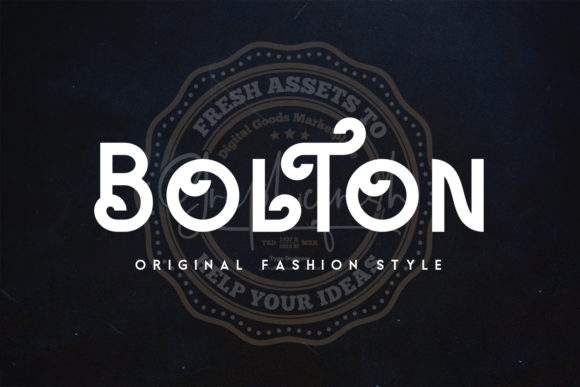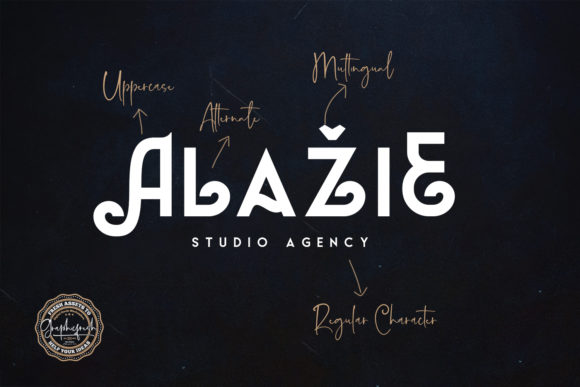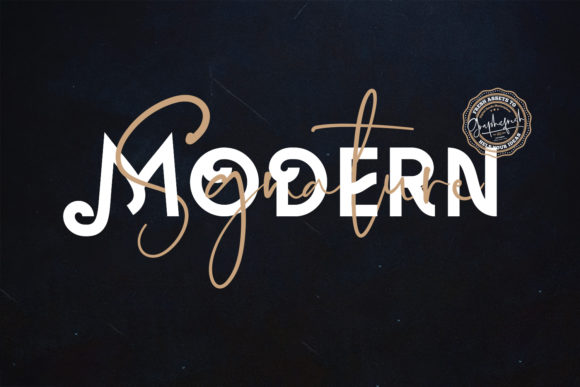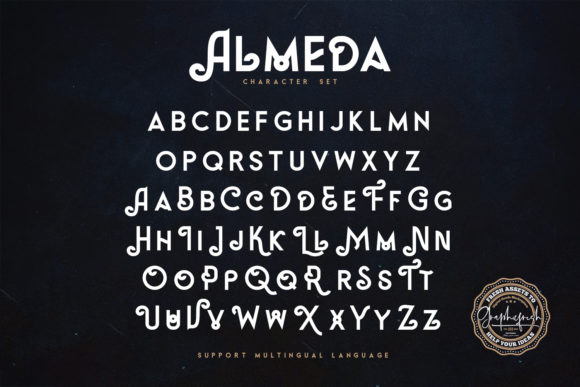
Introducing Almeda Font: A Modern Display Font with a Vintage Touch
Are you a designer or crafter looking for a unique and stylish font to elevate your creative projects? Look no further than Almeda Font, a modern display font with a vintage touch that’s perfect for a wide range of applications. From logos and name cards to magazines, invitations, and headers, Almeda Font is the perfect choice for anyone looking to add a touch of elegance and sophistication to their work.
What is Almeda Font?
Almeda Font is a modern display font designed to evoke the feeling of nostalgia and classic elegance. With its unique blend of modern and vintage elements, this font is perfect for designers and crafters who want to add a touch of sophistication to their projects. Whether you’re creating a logo, a brochure, or a social media graphic, Almeda Font is sure to make your work stand out.
Key Features of Almeda Font
So what makes Almeda Font so special? Here are just a few of its key features:
- Modern display font: Almeda Font is a modern display font that’s perfect for headlines, titles, and other display text.
- Vintage touch: With its classic lines and elegant curves, Almeda Font has a vintage touch that’s sure to evoke feelings of nostalgia and sophistication.
- Versatile: Almeda Font can be used for a wide range of applications, from logos and name cards to magazines, invitations, and headers.
- Elegant and sophisticated: Almeda Font is the perfect choice for anyone looking to add a touch of elegance and sophistication to their work.
Uses for Almeda Font
So what can you use Almeda Font for? The possibilities are endless! Here are just a few ideas to get you started:
- Logos: Almeda Font is perfect for creating unique and stylish logos that will help your brand stand out.
- Name cards: Add a touch of elegance to your name cards with Almeda Font.
- Magazines: Use Almeda Font to create eye-catching headlines and titles for your magazine.
- Invitations: Make your invitations extra special with Almeda Font.
- Headers: Use Almeda Font to create stylish and elegant headers for your website or blog.
Why Choose Almeda Font?
So why should you choose Almeda Font for your next project? Here are just a few reasons:
- Unique and stylish: Almeda Font is a unique and stylish font that’s sure to make your work stand out.
- High-quality: Almeda Font is a high-quality font that’s designed to look great in any application.
| Font Name | Almeda Font |
| Author | Graphicfresh |
In conclusion, Almeda Font is a modern display font with a vintage touch that’s perfect for designers and crafters looking to add a touch of elegance and sophistication to their work. With its unique blend of modern and vintage elements, Almeda Font is sure to make your work stand out. Whether you’re creating a logo, a brochure, or a social media graphic, Almeda Font is the perfect choice. So why wait? Download Almeda Font today and start creating stunning graphics that will leave a lasting impression!